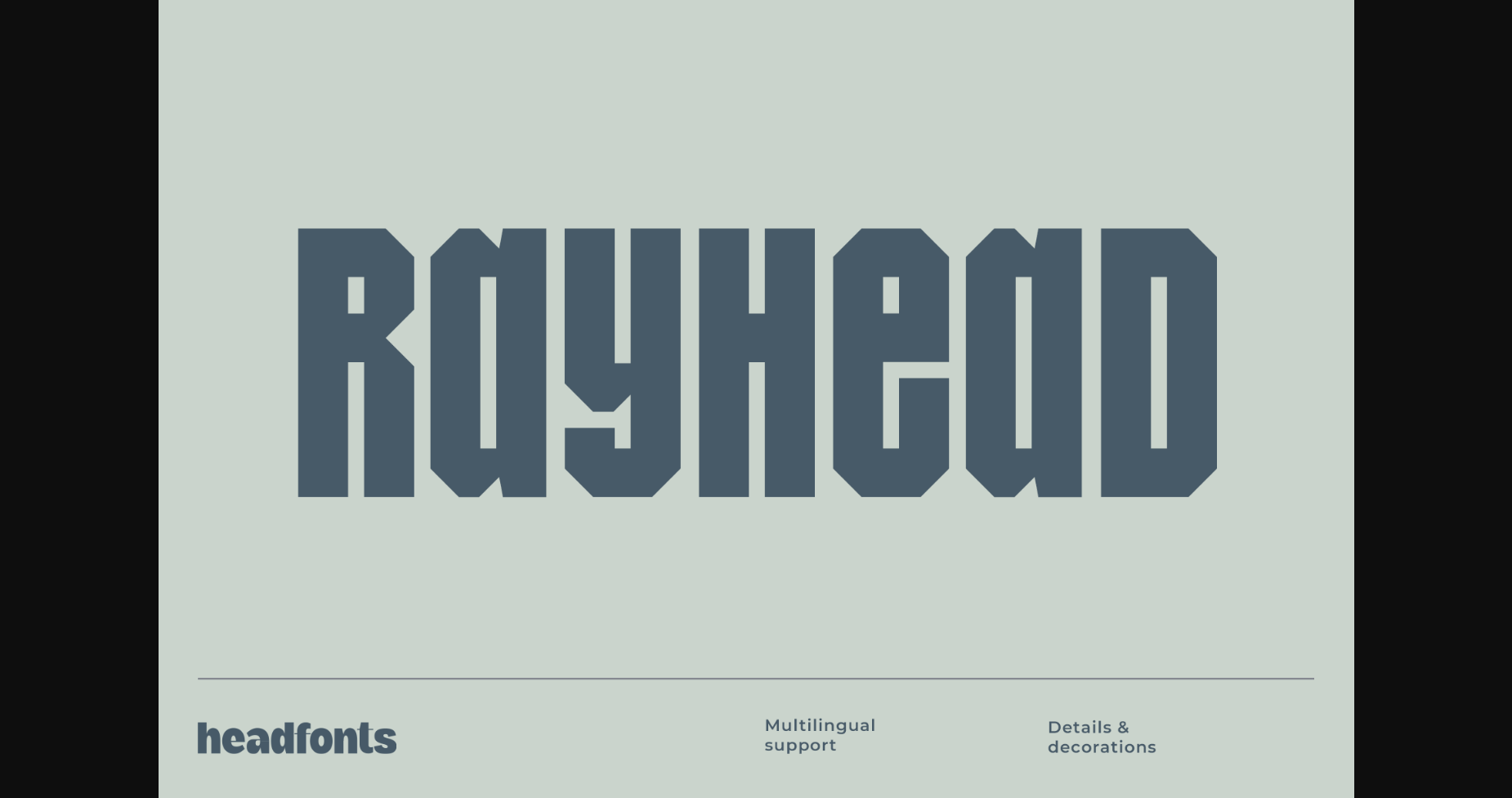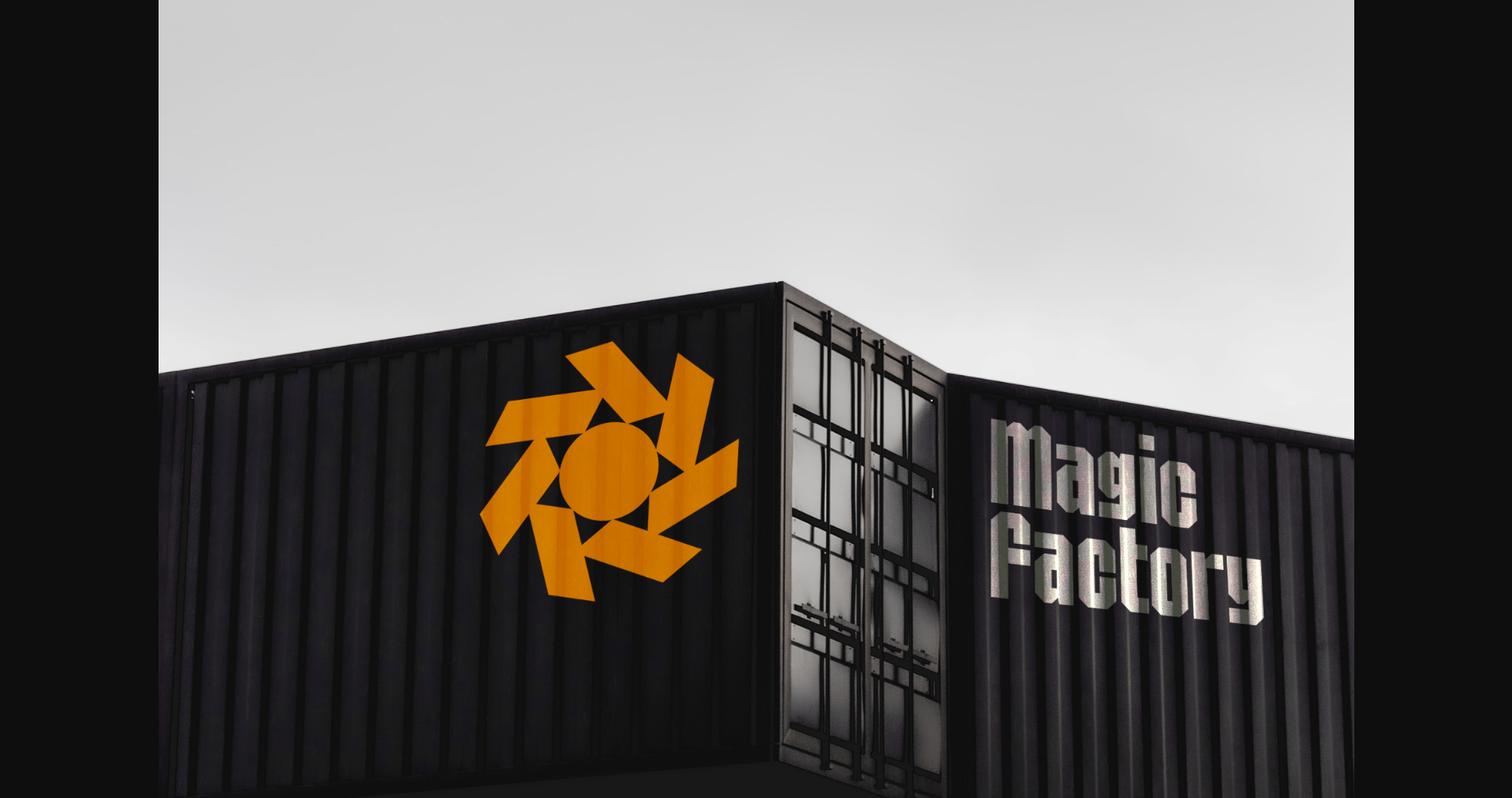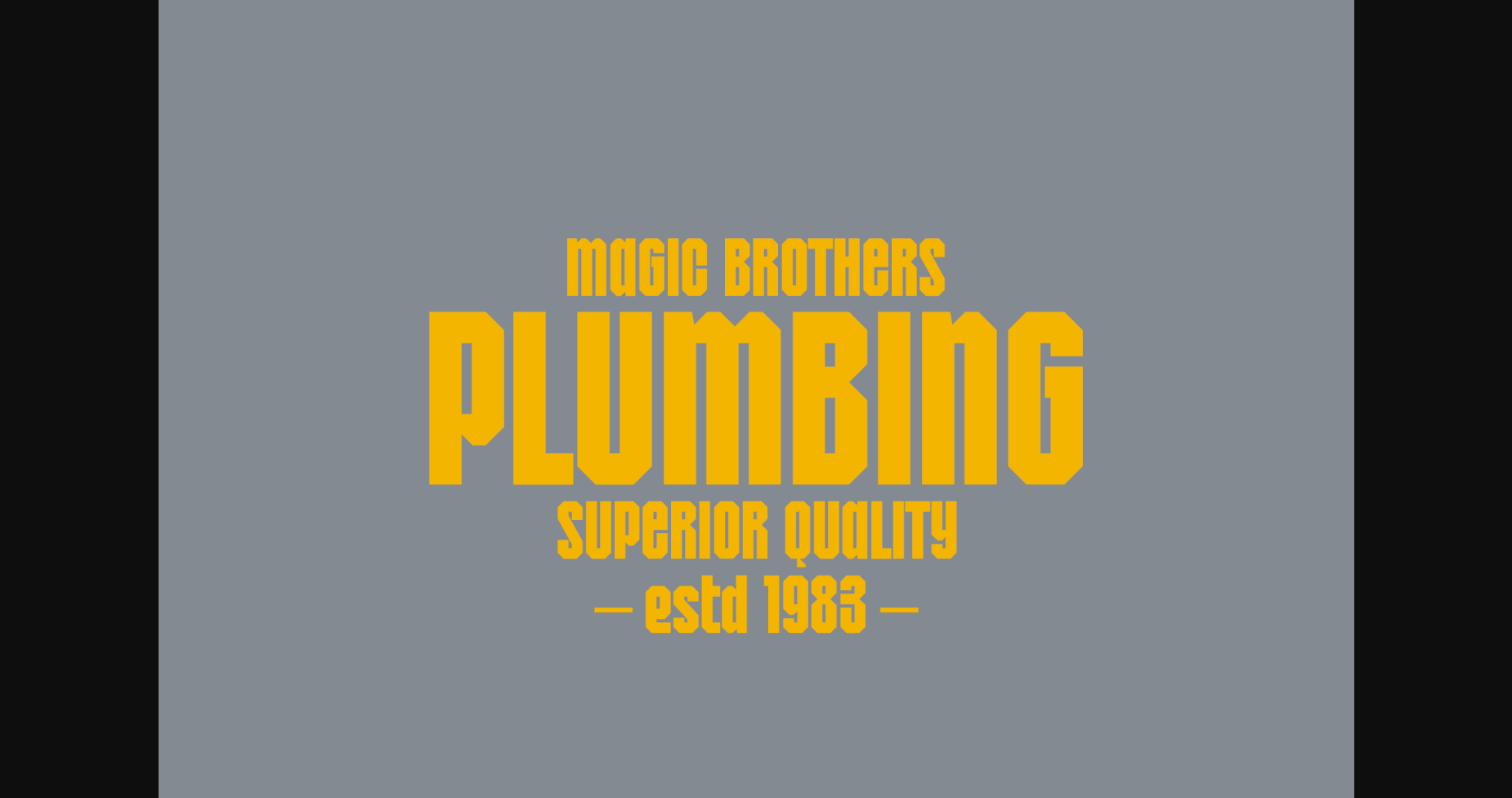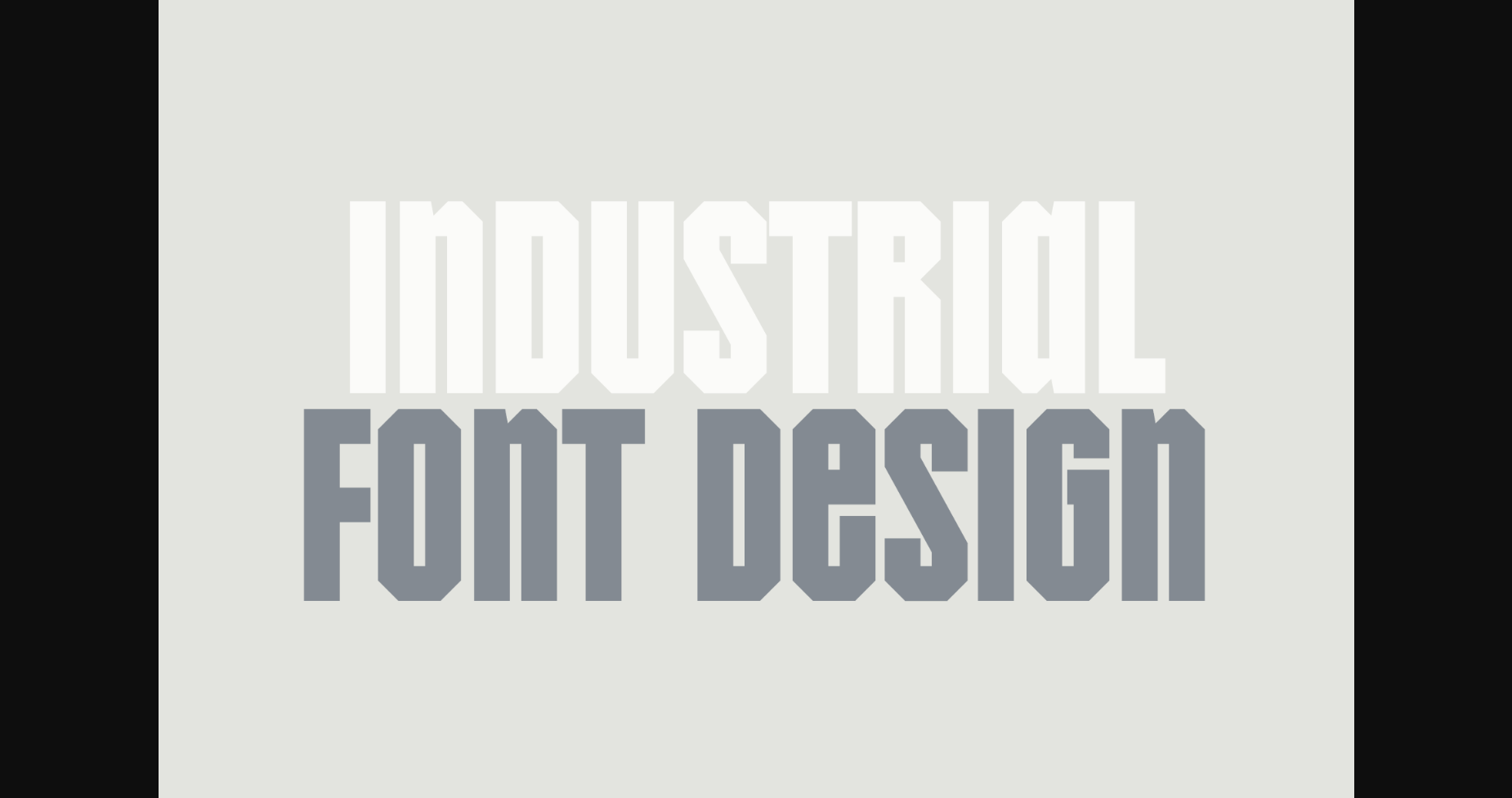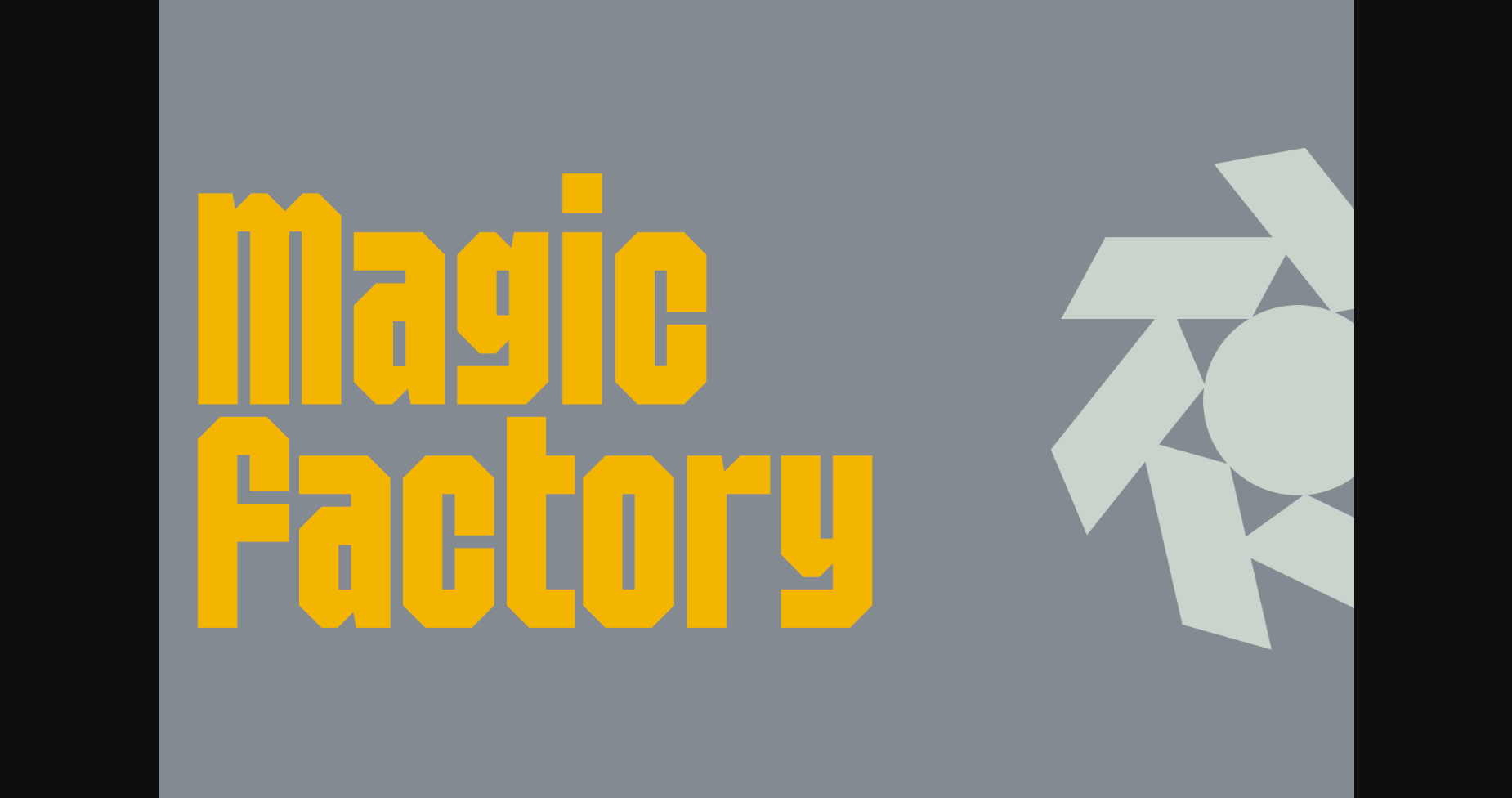
About Rayhead Font
Rayhead is a condensed industrial-inspired sans serif font, useful for minimalist and impactful designs. Rayhead is a one-weight font that looks bold and geometric with straight lines and a contemporary touch.
Rayhead was designed for industrial or modern-themed designs such as transports, heavy goods, plumbing, or industrial work. If you are looking for an industrial font but still preserve a contemporary appearance, this font suits you.
Rayhead is perfect for logo designs, headers, and banners but it can also be used for small articles or occasional text.
Rayhead was designed for industrial or modern-themed designs such as transports, heavy goods, plumbing, or industrial work. If you are looking for an industrial font but still preserve a contemporary appearance, this font suits you.
Rayhead is perfect for logo designs, headers, and banners but it can also be used for small articles or occasional text.